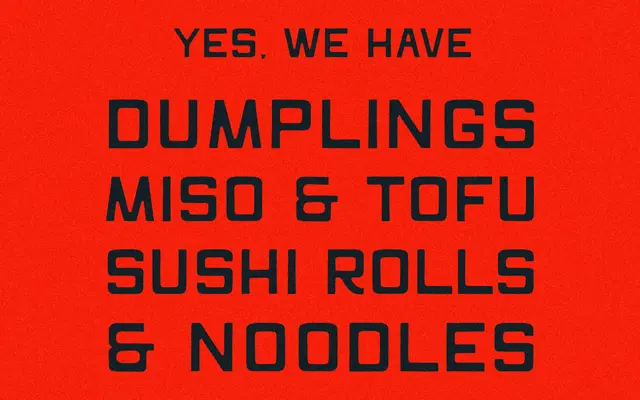
Tommy Tokyo
A collegiate display face with softened curves, designed to sit somewhere between varsity lettering and a more relaxed, approachable style.
Tommy Tokyo takes the structural language of collegiate and varsity type and rounds off the harder edges, giving it a looser, more contemporary character. It ships as a single Regular weight with basic Latin coverage and a limited set of accented characters, totalling 151 glyphs. Best suited to logos, packaging and apparel where a sporty but unforced tone is wanted.
A hybrid collegiate-style display face with softened curves, placing it squarely in the display category with a sporty, varsity-inspired subcategory.